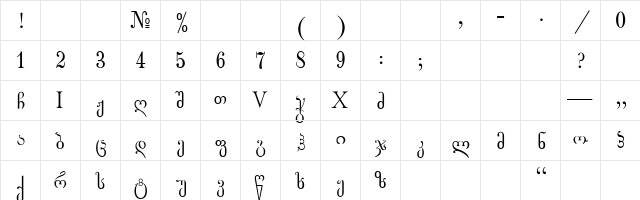
GEO-Gogebashvili Regular
Design Context for GEO-Gogebashvili Typeface
GEO-Gogebashvili takes a measured approach to typography — its balanced proportions and neutral character make it a reliable workhorse for both digital and print work.